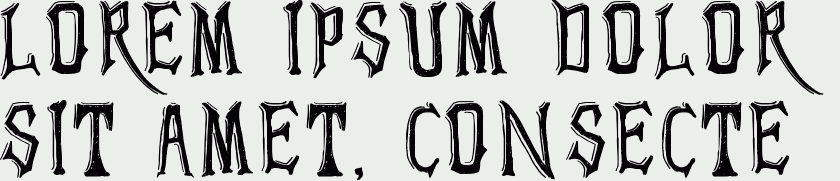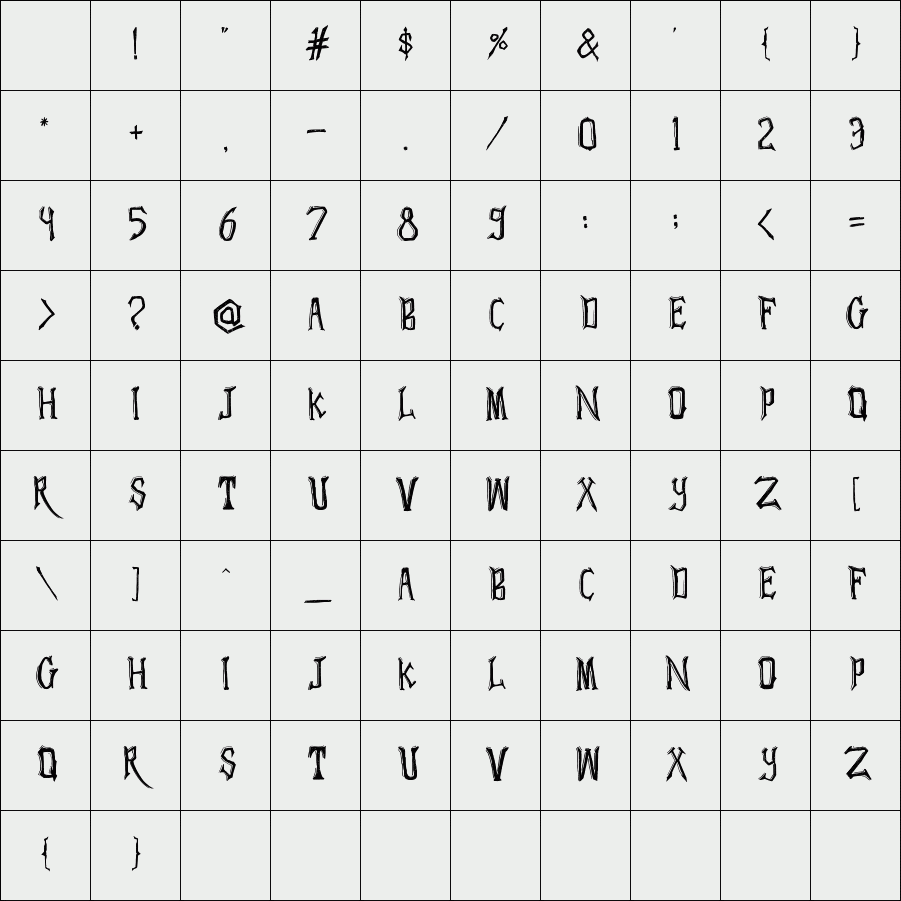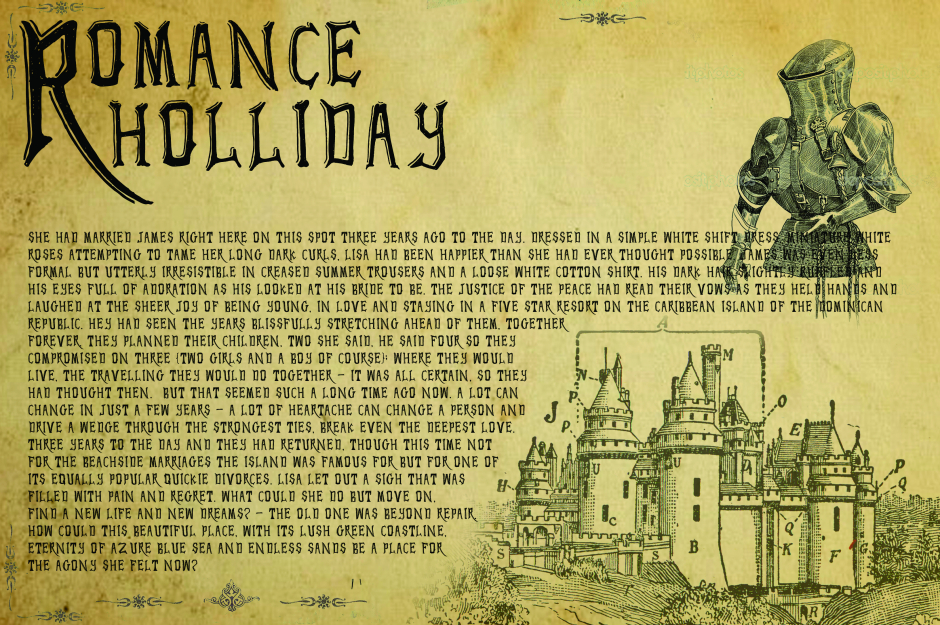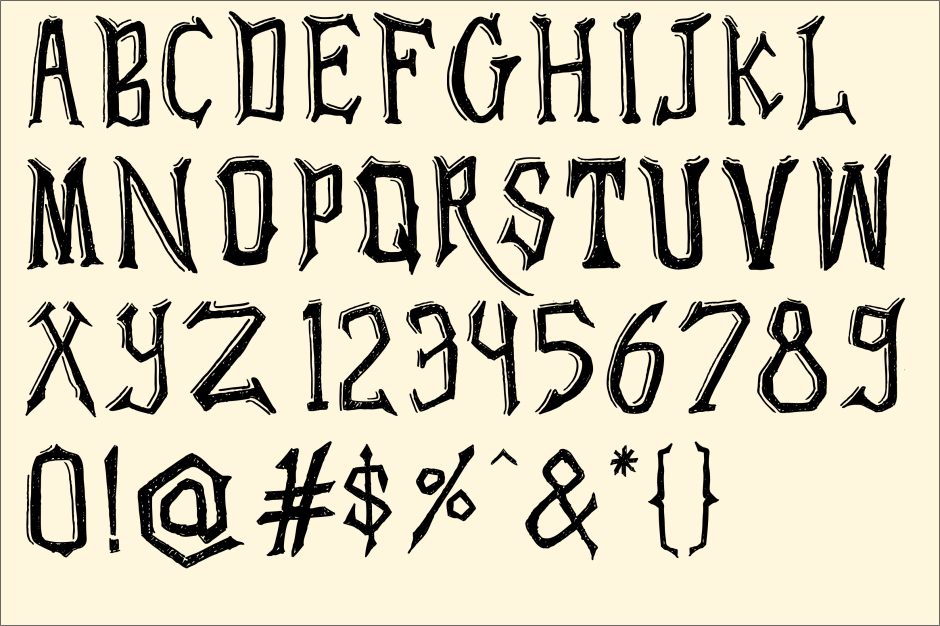
ellin
the shape is irregular and little spots on body add to the impression of grunge,
but letters ellin has a classic style, shadow lines on the letter reinforces
the impression of the era of the Kingdom in antiquity, although elements
of the clasic is powerful, not meaning ellin cannot be used on modern design